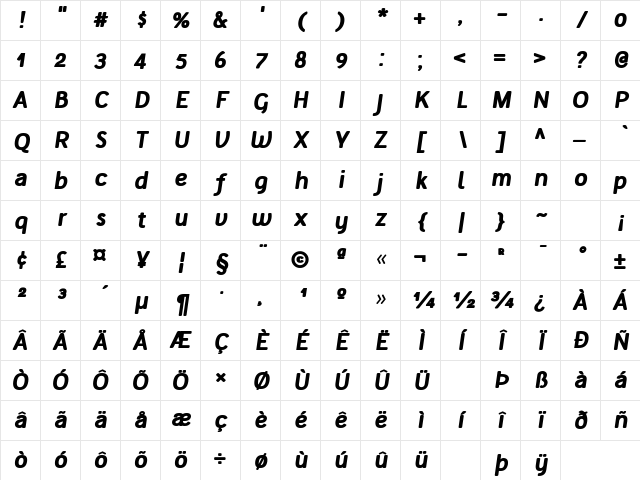
Tellural Alt Bold Italic
Design Context for Tellural Alt
Tellural Alt is a composed and adaptable typeface that performs quietly and consistently across a wide range of design contexts. The slanted form adds forward momentum and visual energy. Its bold stroke weight gives it real presence on the page.
Pro Tip: Use Tellural Alt for emphasis, pull quotes, and subheadings where its slanted energy can add rhythm to the layout.